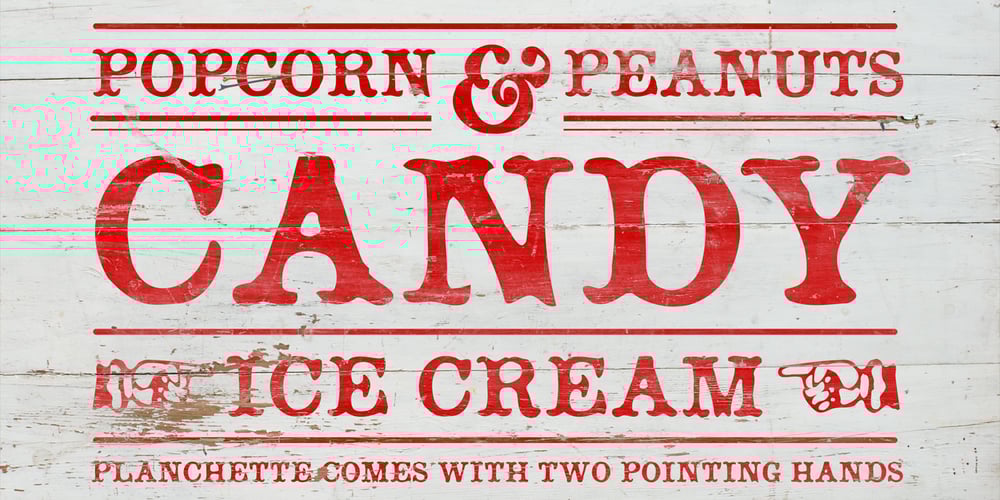
Planchette
Planchette font
Planchette Font Family was designed by Stephen Miggas and published by Aerotype. Planchette contains 1 styles and family package options. Based on a 19th century Toscanienne typeface, Planchette has two hand ornaments accessible by the < and > keys.